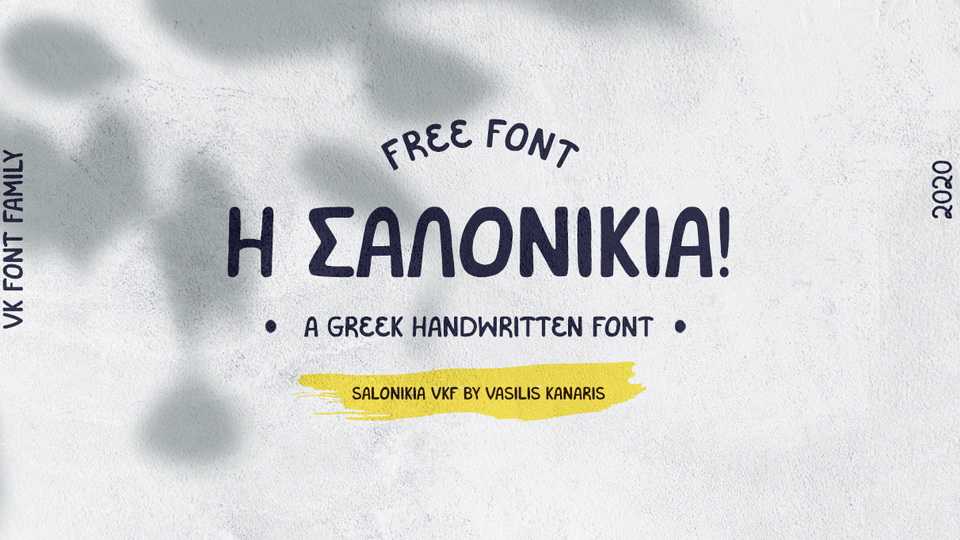
Download Salonika VKF Font, an all caps handwritten font, inspired by Thessaloniki also known as Thessalonica, Saloniki or Salonica is the second-largest city in Greece.
Designer: Vasilis Kanaris